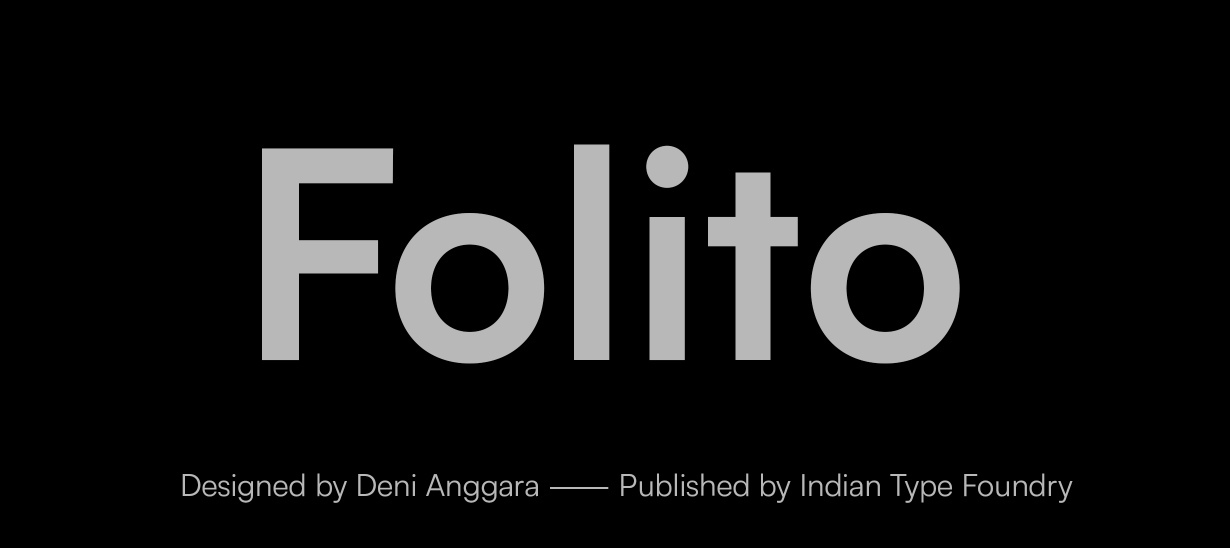
Folito Font
Folito Font is perfect for portfolio presentation design, creative professional branding, artistic showcase materials, design studio communications, professional document layouts, creative agency presentations, elegant business portfolios, and sophisticated project displays.
What makes Folito Font exciting is its portfolio elegance that embodies professional sophistication and creative presentation excellence with organized clarity and artistic refinement. The font features structured letterforms with portfolio proportions and professional character that evoke presentation folders, creative showcases, and the systematic beauty of well-organized professional work and artistic display. Its distinctive portfolio styling and professional appeal communicate competence, organization, and creative excellence, making every message feel professionally curated and touched by the sophisticated presentation of organized creativity and professional showcase quality.
The Folito Font family includes regular weight with uppercase and lowercase letters, numerals, punctuation marks, and comprehensive presentation symbols. Premium versions often feature multiple weights and professional alternates that enhance the elegant, organized aesthetic perfect for portfolio and creative applications.
The organized character of Folito Font makes it particularly valuable for design agencies, creative consultants, and professional portfolio services. Its excellent readability ensures presentation content and creative communications remain clear while maintaining the distinctive portfolio aesthetic that appeals to clients seeking professional creative work and organized artistic presentation.
Creative professional marketers appreciate how Folito Font effortlessly conveys presentation authenticity and professional organization. The font's structured proportions and elegant details create trustworthy creative materials that establish confidence with audiences who value professional presentation, creative excellence, and the sophisticated organization of artistic work and portfolio quality.
The versatile professionalism of this typeface extends to creative education, professional development, and artistic consulting where portfolio authenticity enhances creative credibility and professional appeal. Folito Font Free Download provides creative professionals with an essential tool for developing memorable, presentation-driven designs that resonate with audiences who embrace professional creativity, organized presentation, and the sophisticated elegance of portfolio excellence in their creative and professional experiences.